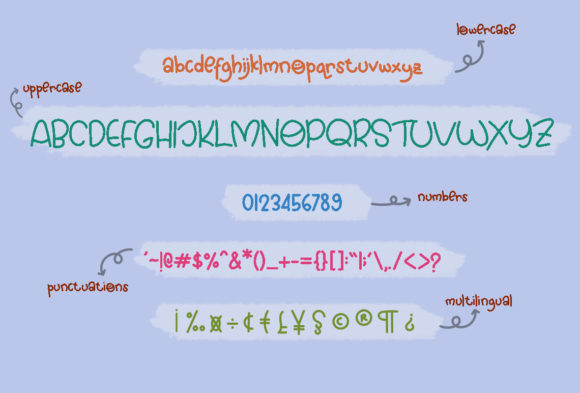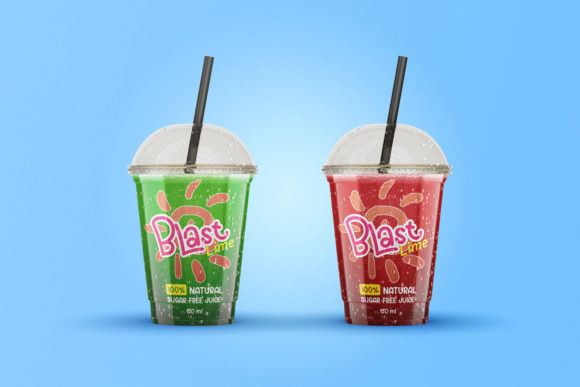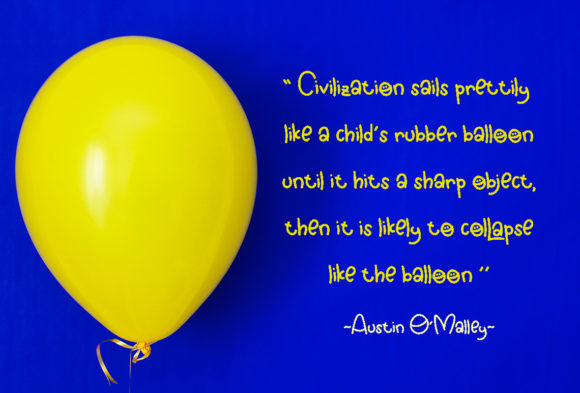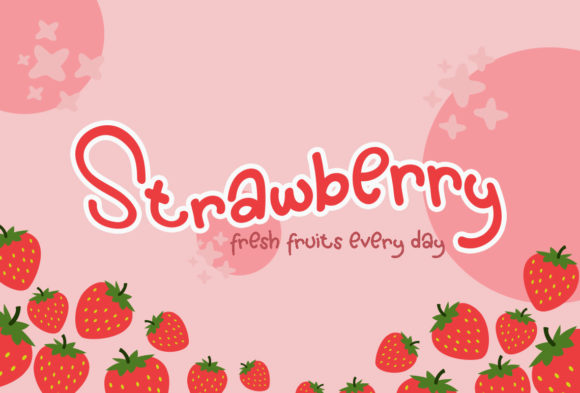
Dakon Play Font
About Dakon Play Font
Dakon Play is a delightful and whimsical handwritten font that exudes cuteness, friendliness, and fun. With its playful and lighthearted style, this font adds a touch of charm to any design project you embark upon. Its versatility makes it a versatile choice for a wide range of applications, and its inherent friendliness makes it a font that can bring joy to various occasions.
The font’s endearing and cheerful appearance makes it an excellent choice for crafting projects. Whether you’re creating handmade cards, scrapbooking pages, or DIY decorations, Dakon Play adds a personal and heartfelt touch to your creations. Its handwritten feel adds an element of authenticity, making your crafts even more special and unique.
In the digital realm, Dakon Play shines as a font that can infuse your designs with a sense of playfulness and positivity. Whether you’re designing social media graphics, presentation slides, or digital advertisements, this font’s friendly and fun vibe can capture your audience’s attention and leave a memorable impression.
Furthermore, Dakon Play is a versatile option for creating greeting cards for various occasions. Its ability to convey warmth and happiness makes it suitable for birthday cards, thank you notes, holiday greetings, and more. Its unique character adds a touch of originality to your cards, making them stand out and evoke positive emotions.
One of the most appealing aspects of Dakon Play is its limitless potential. Its adaptability and charming style make it suitable for a wide range of design projects, from casual to more formal contexts. The font’s carefree and light-hearted nature encourages creativity and experimentation, allowing you to explore various design directions without constraints.
In conclusion, Dakon Play is a cute, friendly, and fun handwritten font that brings a sense of joy to your design projects. Its versatility makes it a reliable choice for crafts, digital designs, presentations, and greeting cards. With its ability to capture the imagination and create a positive impact, Dakon Play is a font that can truly become a go-to favorite for designers seeking to infuse their work with a touch of playfulness and creativity.